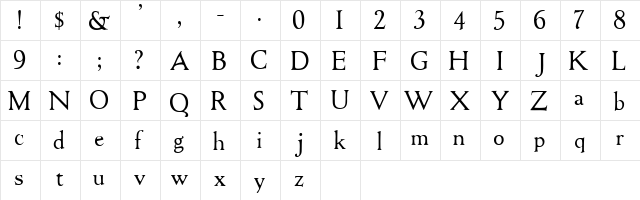
National Oldstyle HPLHS
Design Context for National Oldstyle Typeface
National Oldstyle carries the refined structure of traditional serif typography, with bracketed terminals and considered proportions that communicate credibility and craft.